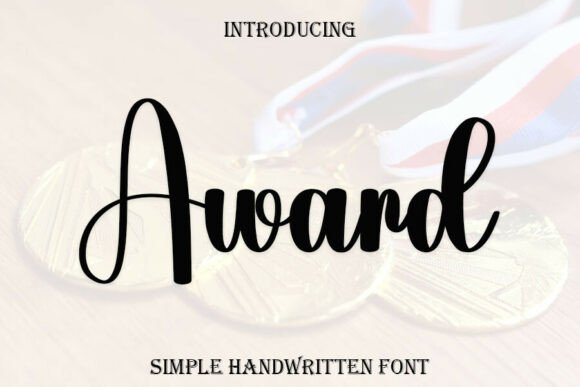
Celebrating Excellence with the Award Font: A Designer’s Best Friend
I still remember the design project that made me fall in love with the Award font. I was working on a branding campaign for a local marathon, and I needed a typeface that would convey a sense of achievement and celebration. After hours of searching, I stumbled upon the Award font, and it was like the design gods had finally smiled upon me. Its smooth, fluid strokes and high-arcing stems instantly captured the essence of a victory lap, and I knew I had found the perfect fit.
What I Love About the Award Font ✨
- ✅ The casual warmth and touch of distinction that make it perfect for personalized certificates and achievement-themed designs.
- ✅ The fluid strokes and high-arcing stems that evoke the sense of movement and celebration.
- ✅ The versatility to work well in various design contexts, from athletic event branding to social media posts.
- ✅ The unpretentious yet confident anatomy that ensures your message feels authentic and earned.
- ⚠️ The font may not be suitable for very formal or traditional designs, as it has a distinctly casual and celebratory feel.
- ⚠️ Some users may find the font’s smoothness and fluidity challenging to read at very small sizes.
One of the Award font’s strengths is its range of OpenType features and glyphs. These allow you to add more variety and depth to your text, making it more engaging and dynamic.
| Feature | Description |
| Stylistic Alternates | Swap out glyphs for alternative forms that add more flair to your text. |
| Glyphs | Access a range of special characters and symbols to enhance your design. |
| Kerning and Ligatures | Fine-tune your text’s spacing and flow with advanced kerning and ligature features. |
The Designer Inspiration Behind the Award Font
The Award font was inspired by the thrill of victory and the joy of celebration. Its designer sought to create a typeface that would capture the essence of achievement and milestone-making, while still feeling approachable and authentic.
Q: What makes the Award font so special?
A: The Award font’s unique blend of casual warmth and distinction makes it perfect for personalized certificates, athletic event branding, and achievement-themed designs.